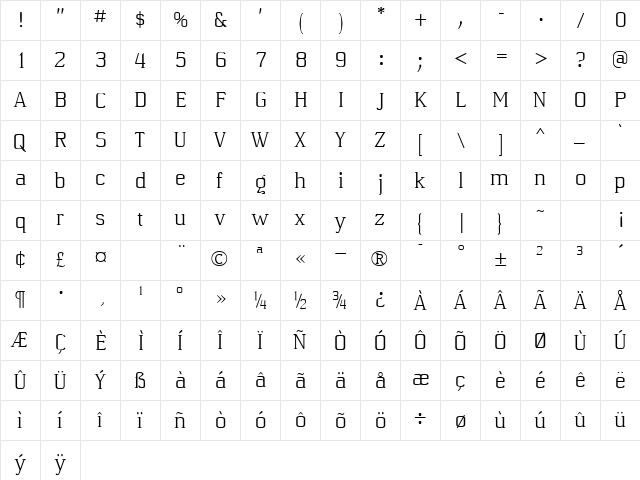
Quatsity Regular
Design Context for Quatsity Typeface
Quatsity offers clean, dependable letterforms without strong stylistic allegiance, making it a practical choice for designers who need flexibility.
Pro Tip: Use Quatsity in both headline and body roles to test its range before committing to a single application.